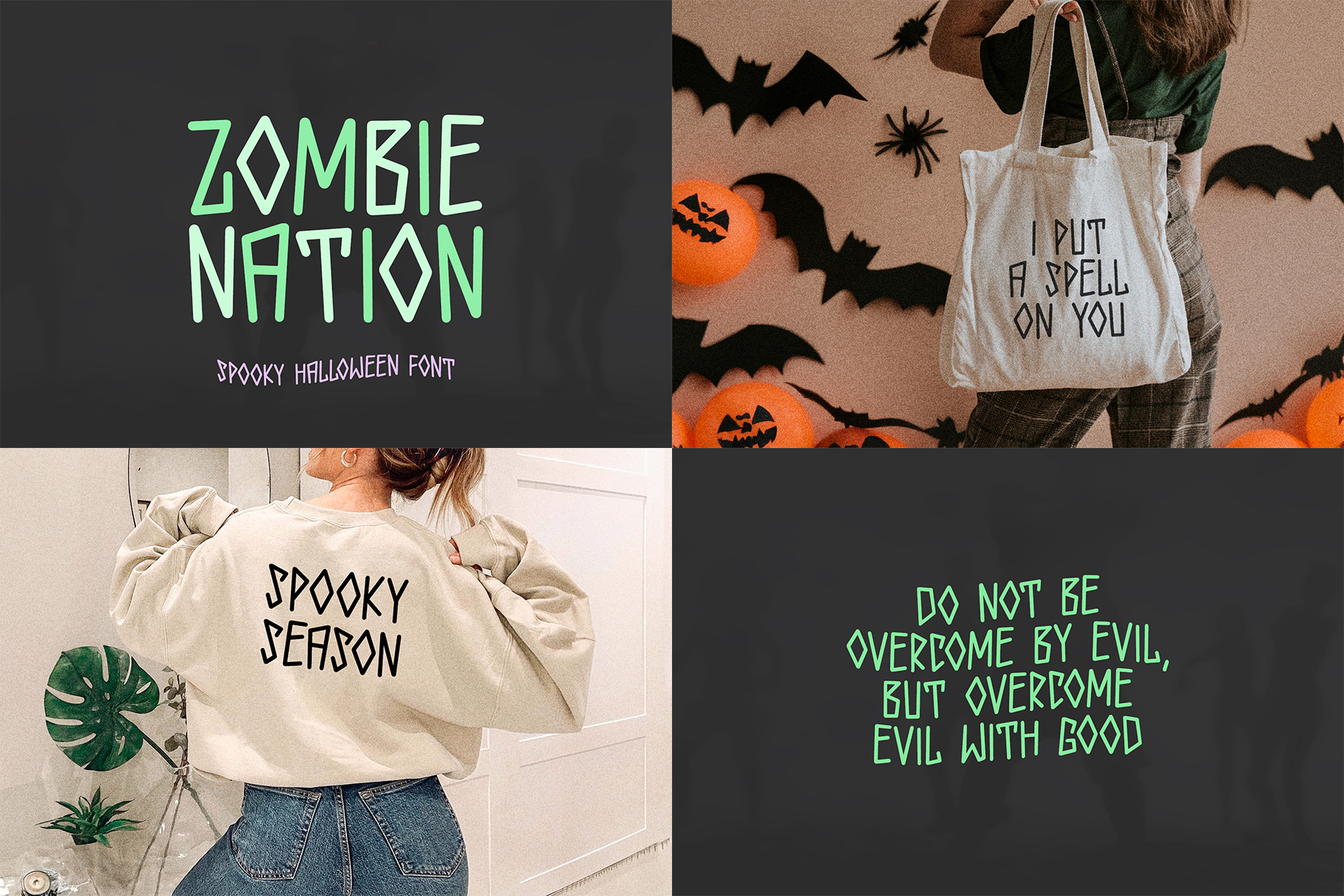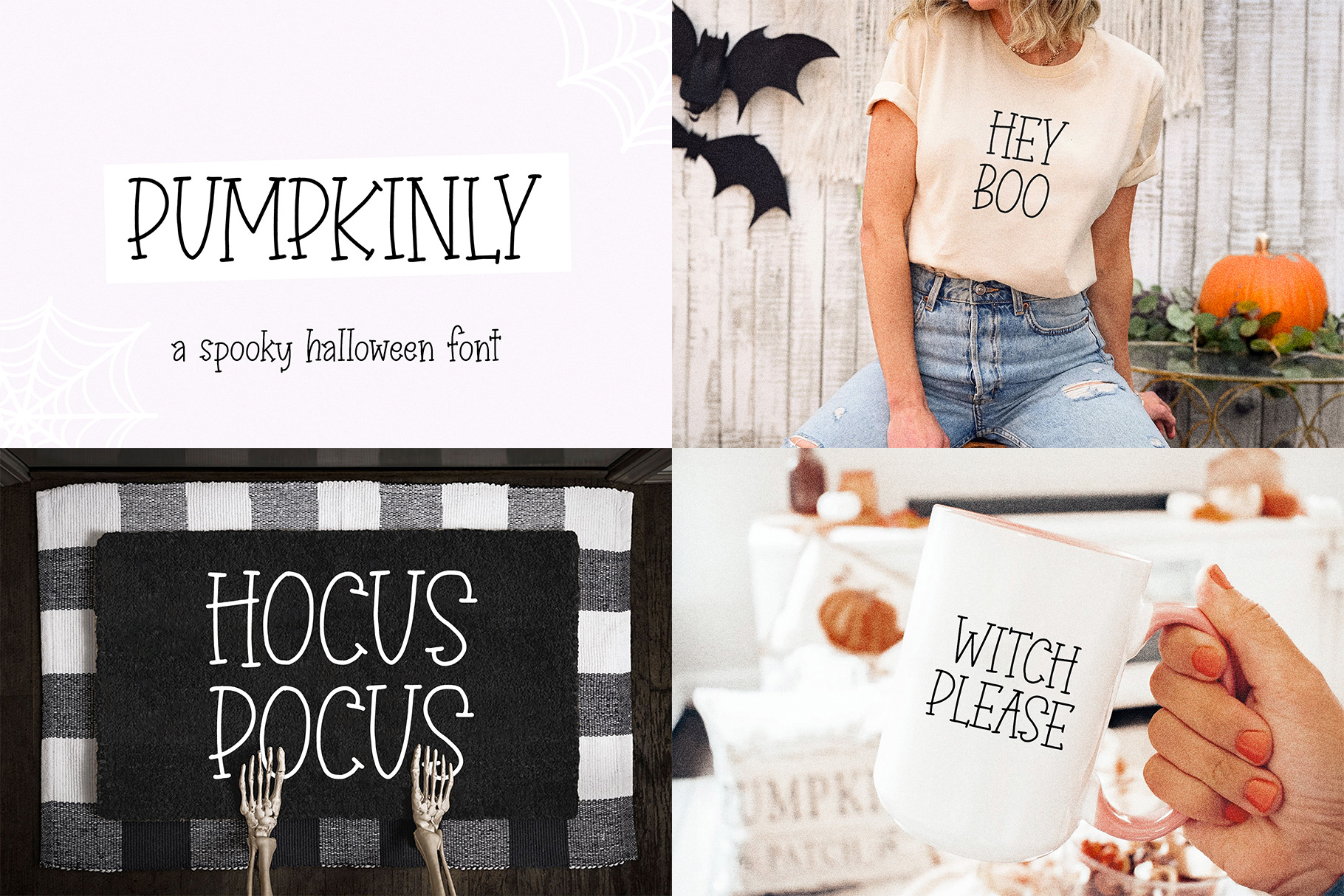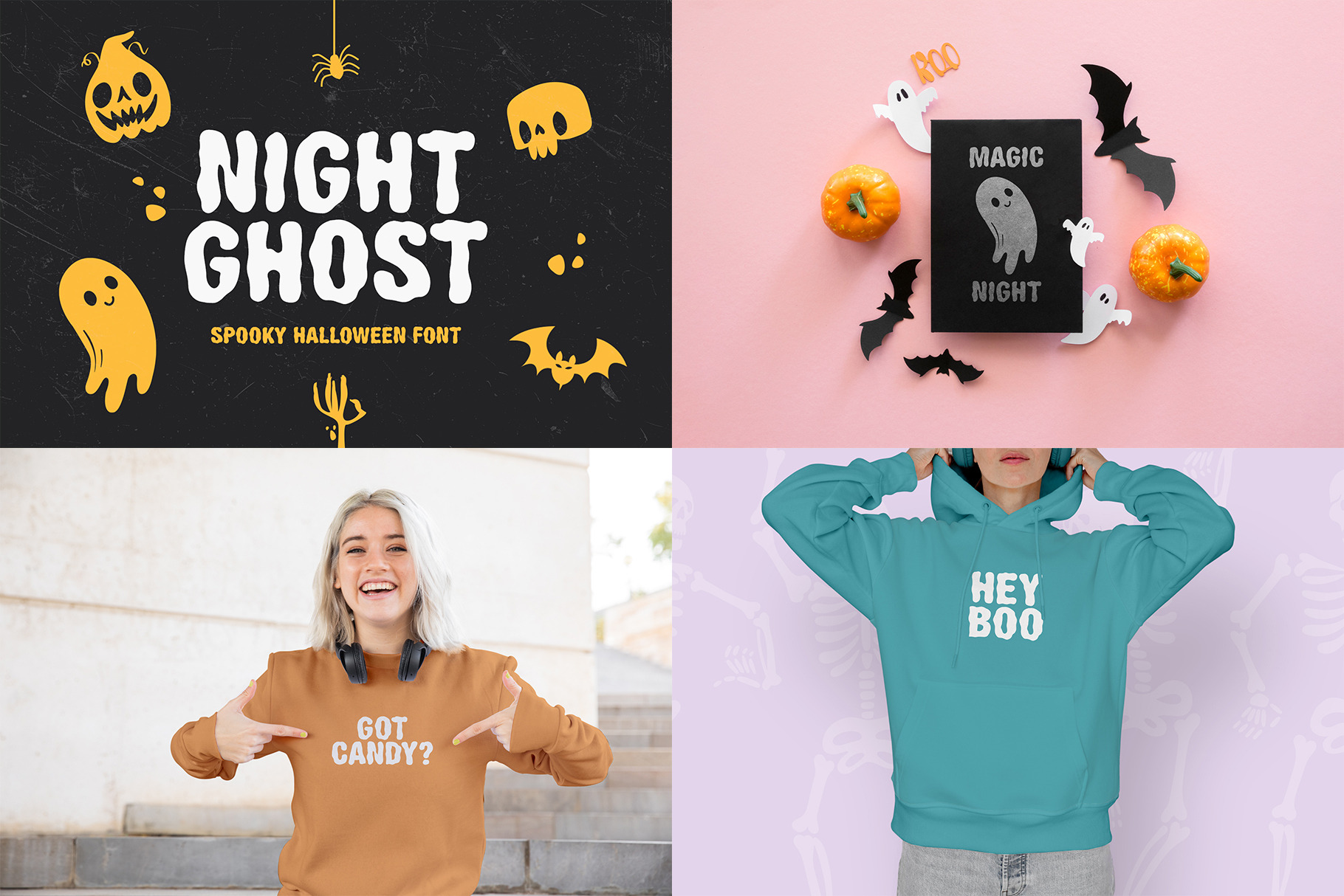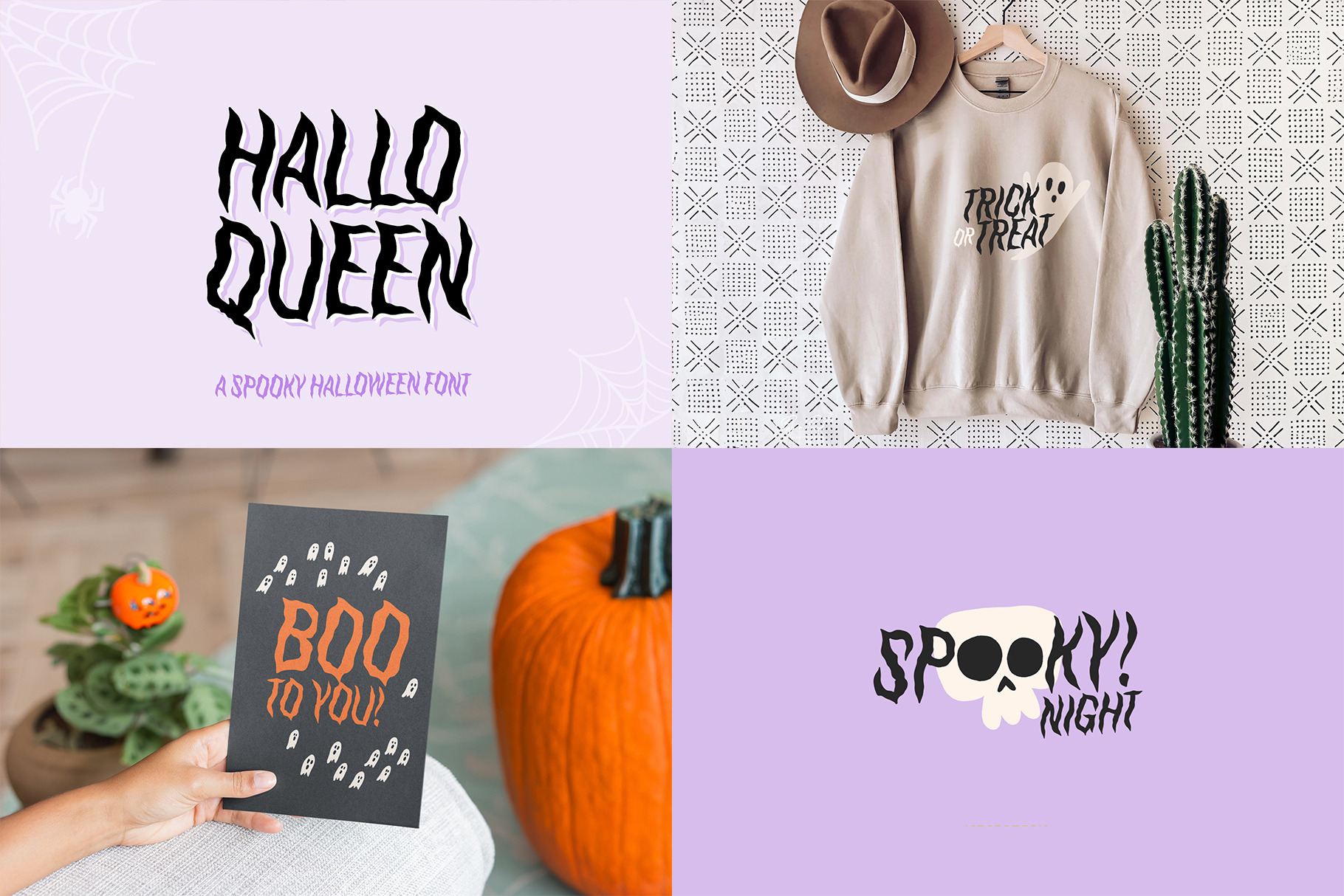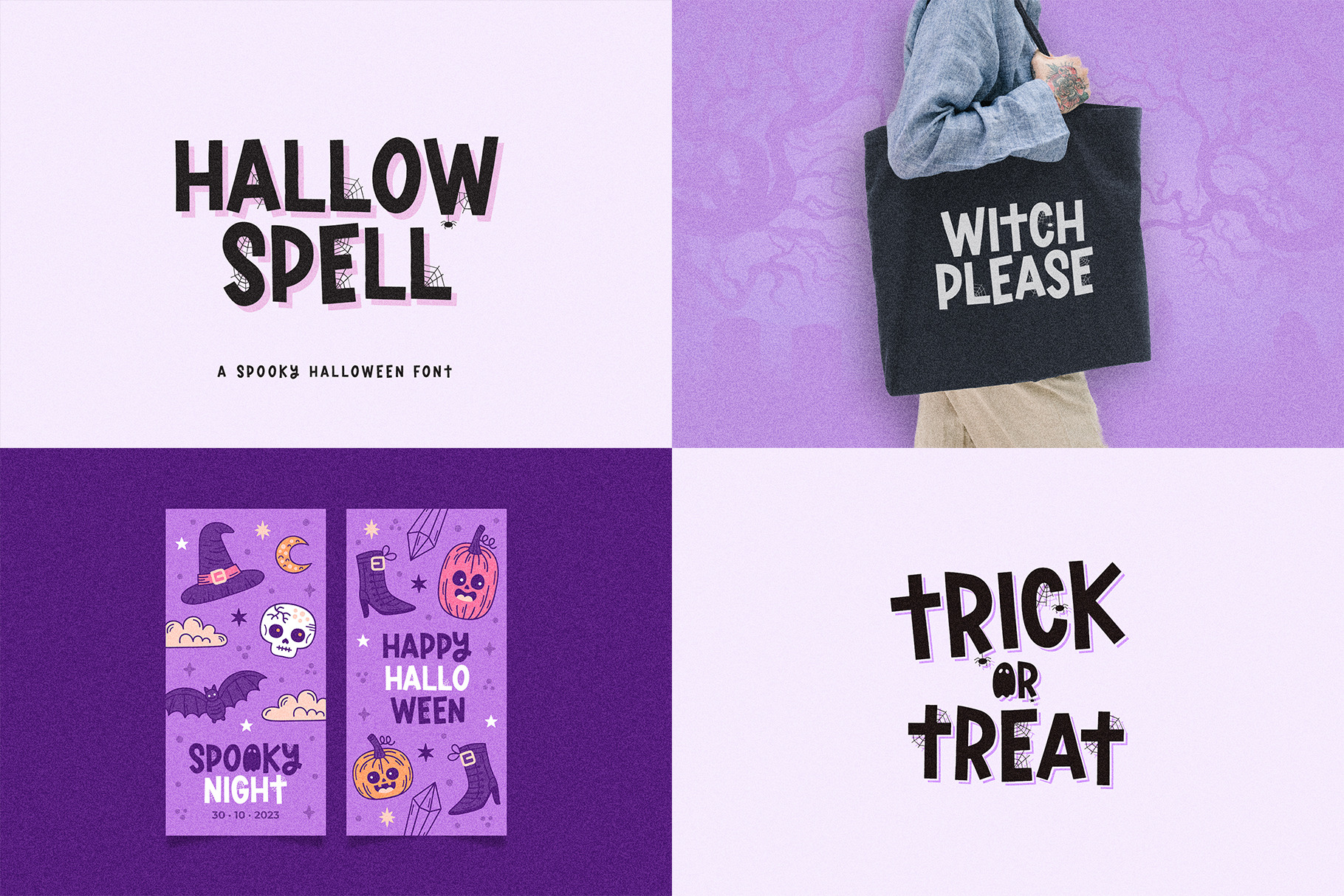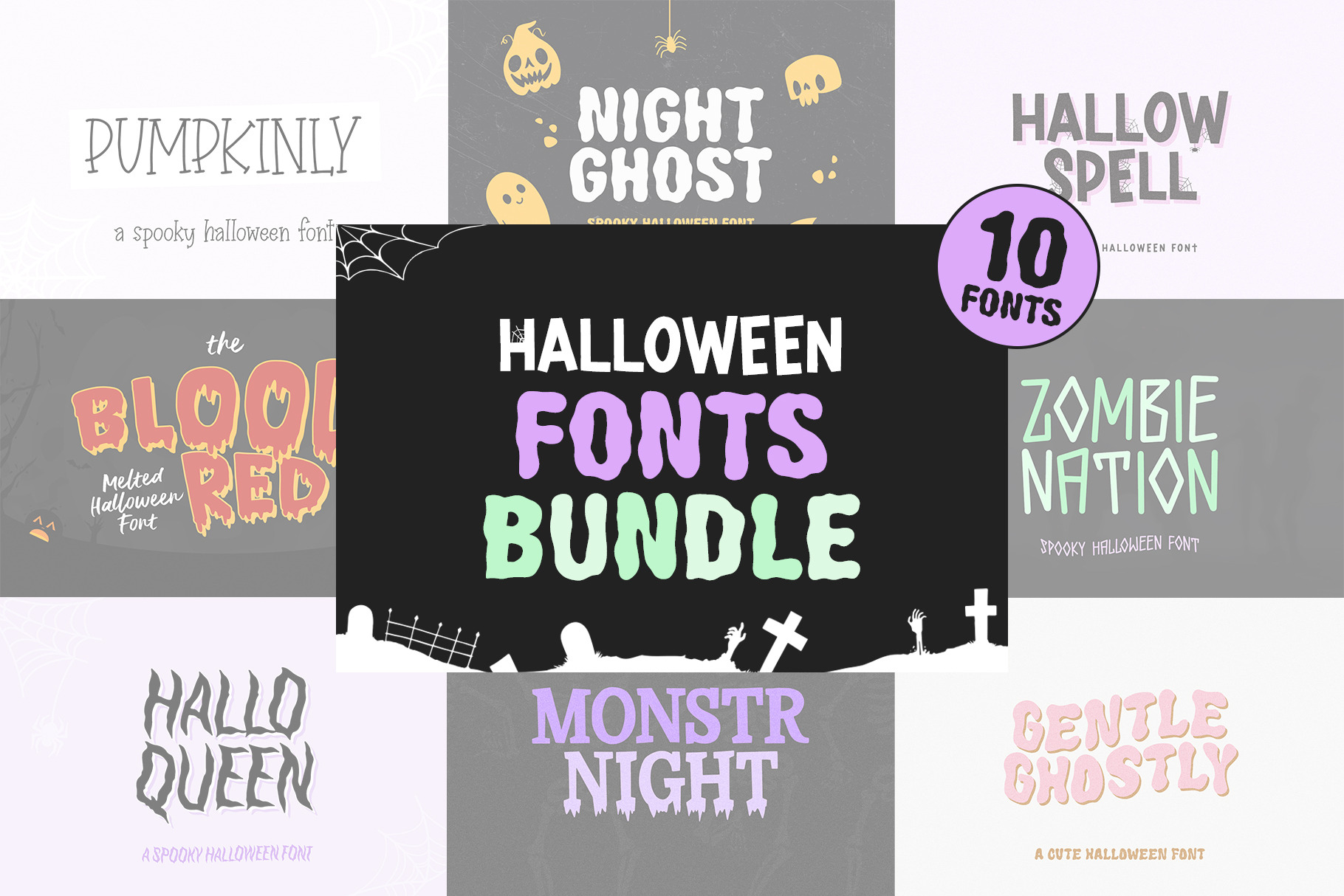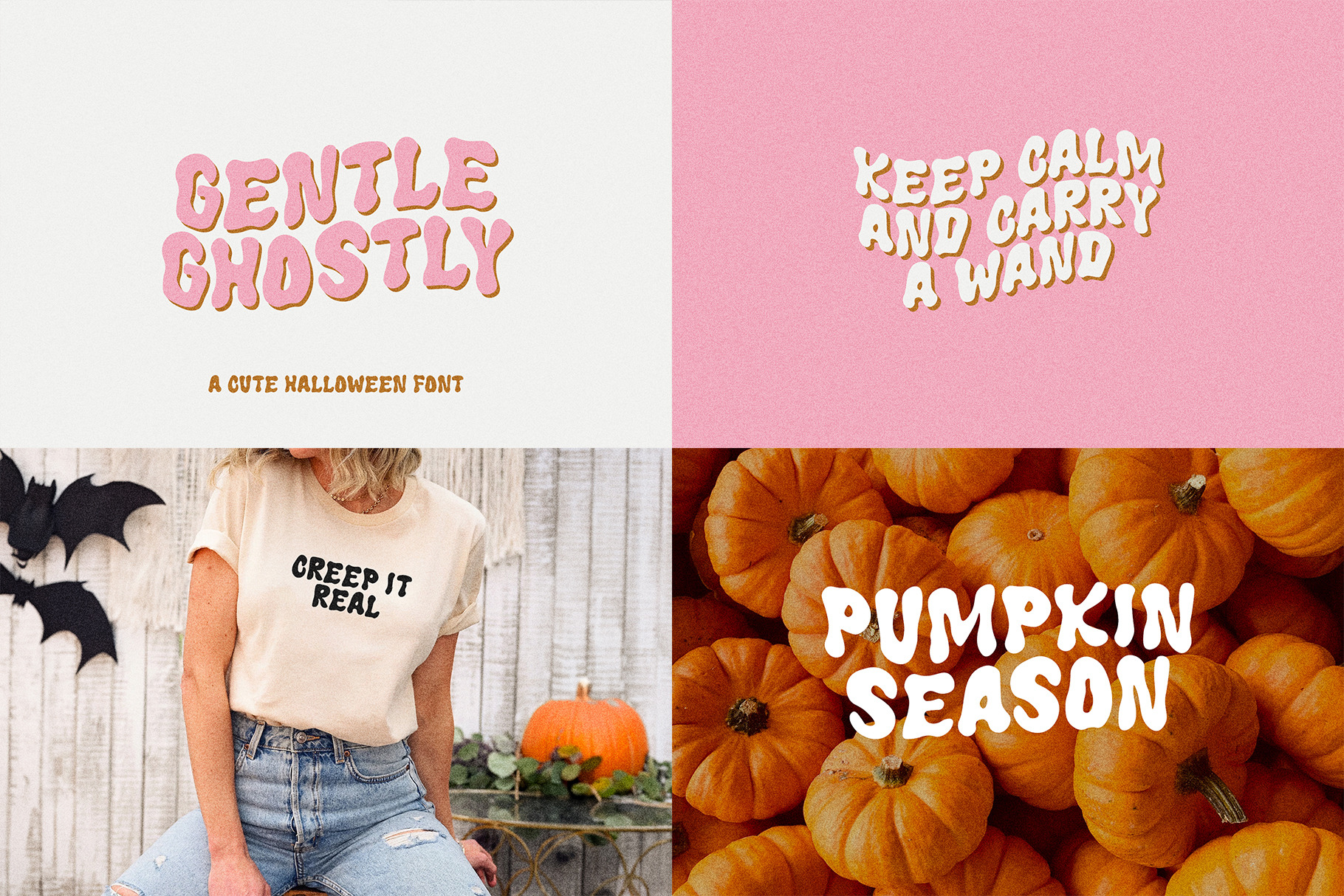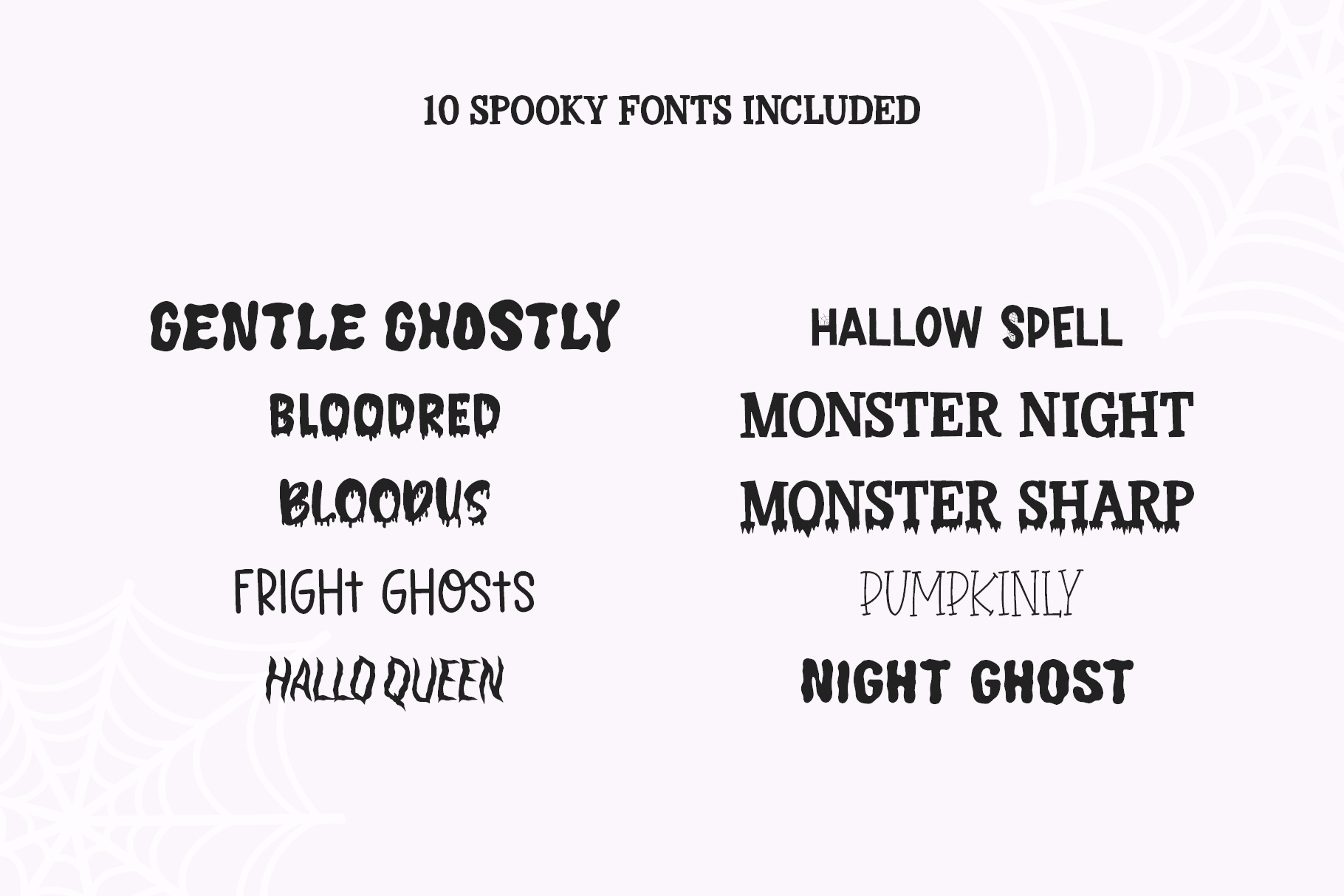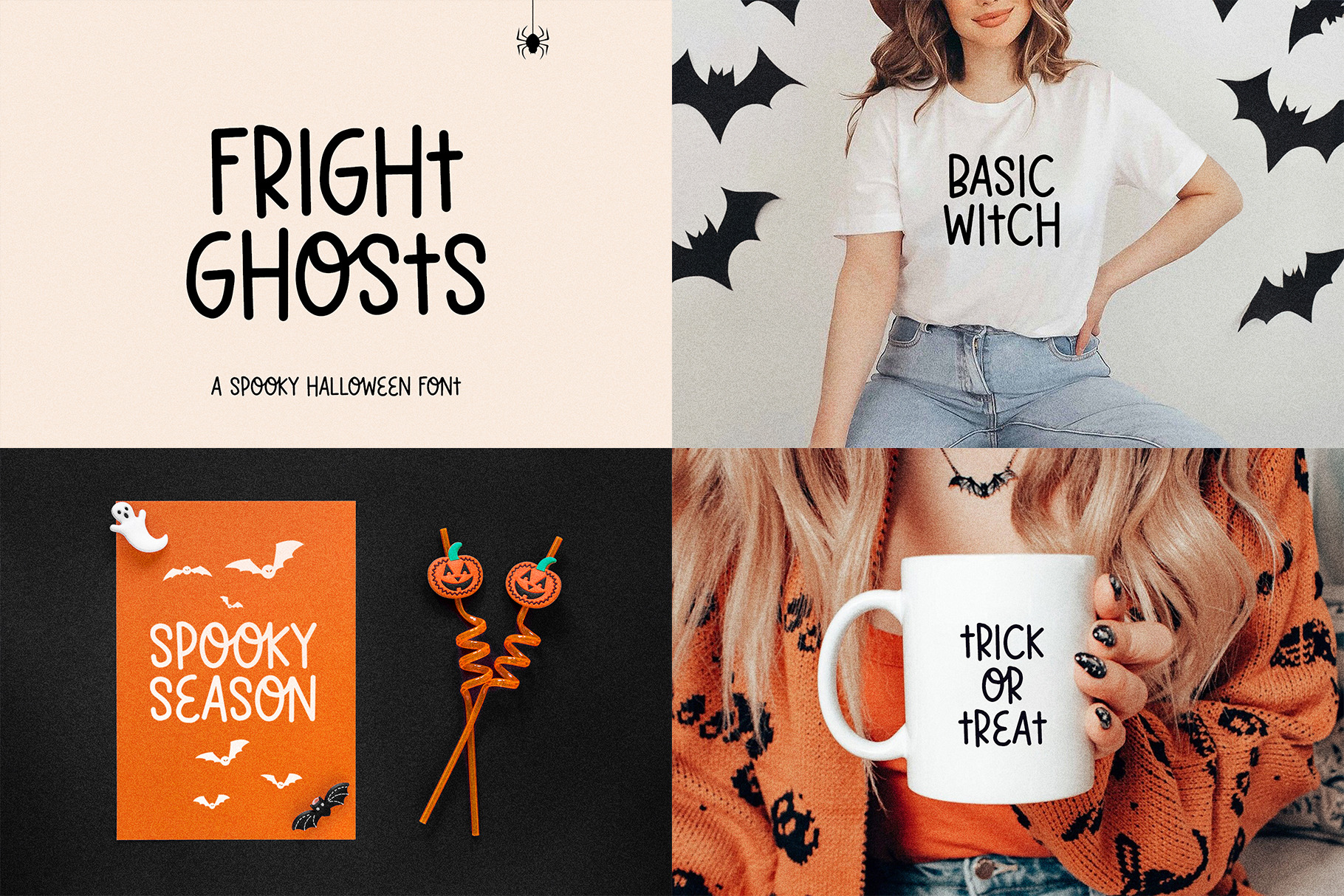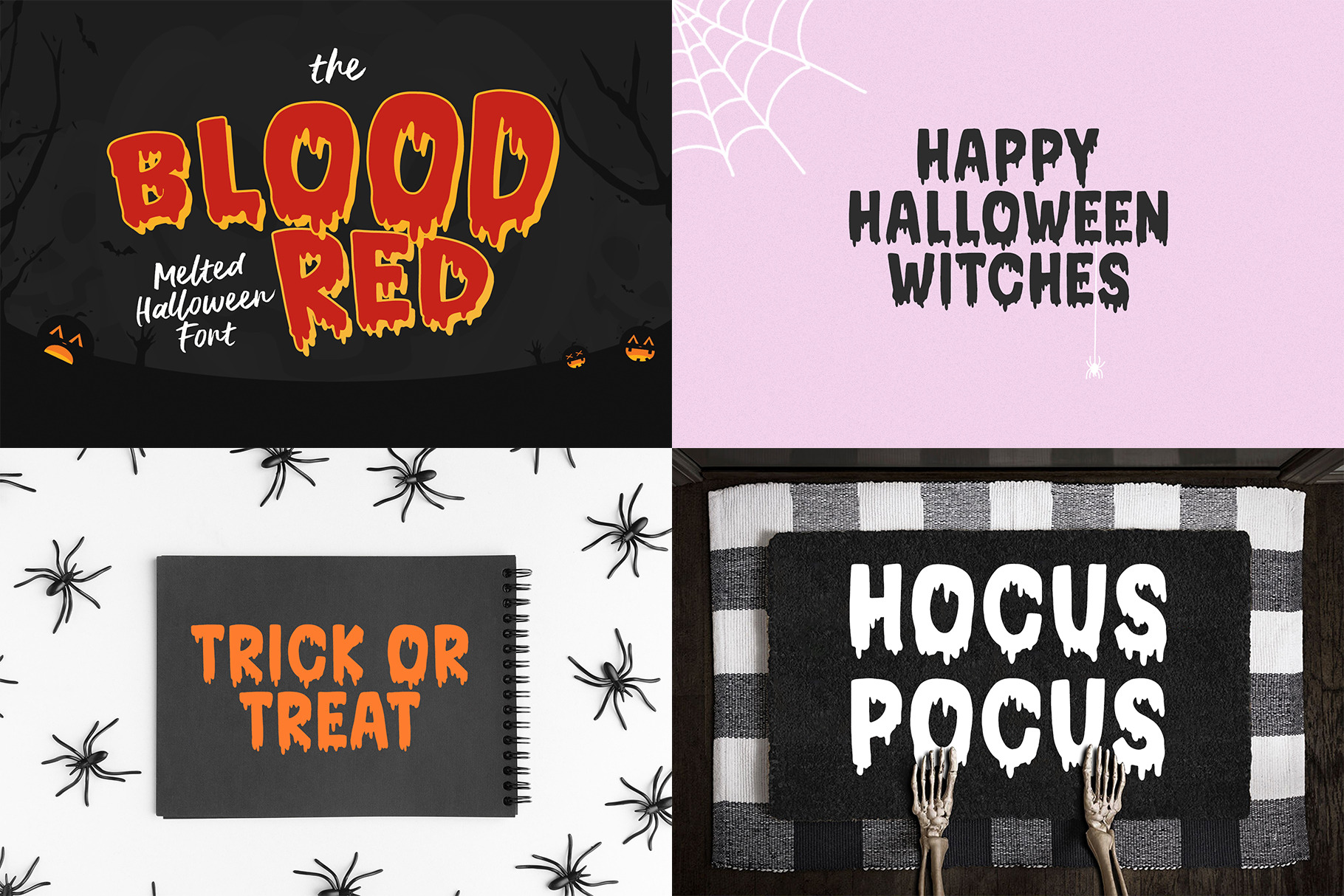
Halloween fonts bundle will be perfect for halloween lettering, beautiful frame for your home, book covers, greeting cards, logos, marketing, magazines or anything that requires cute handwritten lettering :) Inside 9 fonts: - Fright Ghosts - PUMPKINLY - Bloodus - Hallow Spell - Monster Night - Monster Night Sharp - Night Ghost - Halloqueen - Bloodred Features: - Multilingual support - Cricut support Halloween, Spooky, Spooky Font, Halloween Font, Halloweeen, Halloween Style, Halloween Alive, Halloween Bones, Halloween Designs, Halloween Evil, Halloween Fun, Halloween Horror, Halloween Treats, Halloween Movie, Halloween Decoration, Halloween Flyer, Halloween Party If you have any questions, please contact me directly or in instagram @superdizigner | Halloween fonts bundle | supfonts